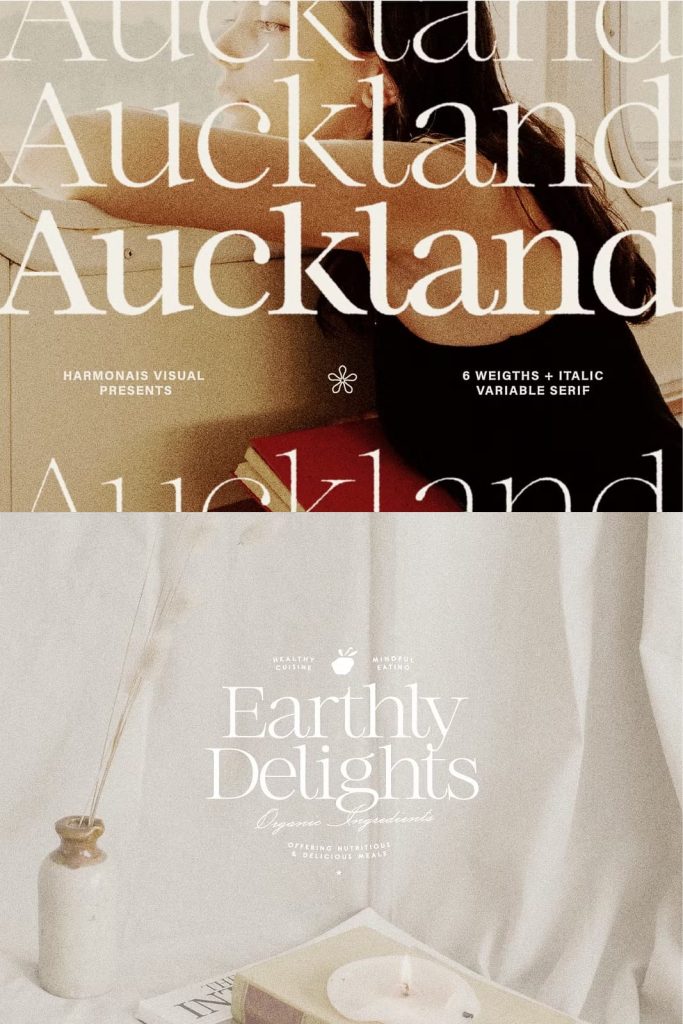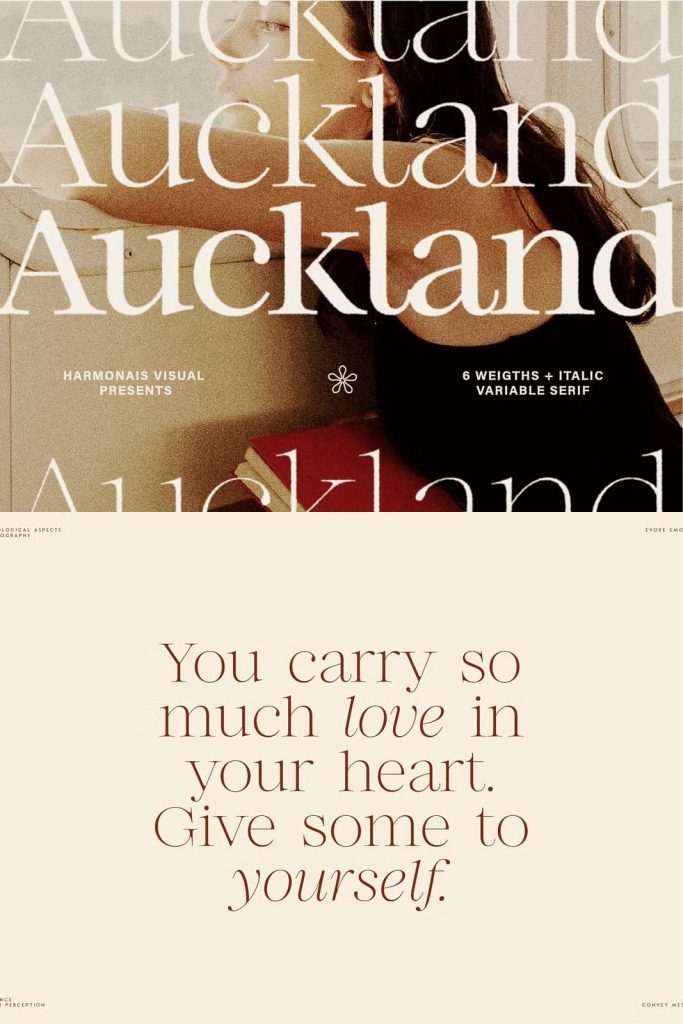
Auckland Variable Serif: A Timeless and Versatile Serif Typeface
Auckland Variable Serif is a refined serif font crafted with elegance, versatility, and timeless character. Designed with beautifully sculpted curves and sharp, deliberate detailing, this typeface brings sophistication to any design project. Whether you are working on branding, editorial layouts, digital designs, or product packaging, Auckland Variable Serif offers a professional and polished typographic foundation. Its variable features allow dynamic adjustments, giving designers complete control over weight, expression, and overall visual impact.
Experience the Elegance and Timeless Charm of Auckland Variable Serif
Auckland Variable Serif captures the classic beauty of traditional serif typography while embracing the modern capabilities of variable font technology. Each letterform features smooth transitions, balanced proportions, and graceful movement. The consistent structure enhances clarity and visual harmony, making the typeface suitable for both display and text settings. Its timeless charm allows designers to create compositions that feel contemporary yet rooted in classic design principles.
The careful combination of elegant curves and confident strokes gives Auckland Variable Serif its distinctive character. The design communicates reliability, professionalism, and artistic refinement, qualities that make it highly effective in formal presentations, high-end branding, editorial spreads, and luxury design concepts.
Designed to Support a Wide Range of Creative Projects
Auckland Variable Serif adapts seamlessly to various design environments. Its variable capabilities enable users to fine-tune weight and contrast, allowing the font to take on different personalities depending on the project’s needs. Use it for bold headlines by increasing weight, or fine-tune it to create smooth, delicate typography for longer reading experiences. This flexibility ensures consistency across multiple media formats while supporting creative exploration.
Designers can apply Auckland Variable Serif in branding systems, where a cohesive visual identity is essential. The font performs exceptionally well in logotypes, taglines, stationery designs, business cards, and corporate materials. In editorial projects, its refined form enhances readability for magazines, books, brochures, and professional reports. For digital designs, Auckland offers clarity across screen sizes, delivering a polished appearance for websites, apps, and presentation graphics.
Why Designers Choose Auckland Variable Serif
Designers appreciate Auckland Variable Serif because it delivers both beauty and functionality. Its variable version allows full customization, making the typeface responsive to creative vision. You can adjust softness, weight, contrast, and overall tone to suit specific branding or design goals. This adaptability ensures that Auckland remains relevant across different projects, from modern minimalism to vintage-inspired compositions.
The font’s carefully crafted curves and structural harmony enhance visual flow, helping designers communicate messages with clarity and style. Auckland Variable Serif maintains a consistent rhythm, supporting both small and large text blocks with equal efficiency. Its timeless charm ensures designs feel thoughtful, elegant, and professional, regardless of medium.
Elevate Your Designs with Sophisticated Typography
Auckland Variable Serif empowers creatives to build compelling design experiences. Its elegant form enhances visual storytelling, transforming ordinary compositions into works of refined craftsmanship. The typeface’s subtle details—such as curved terminals, balanced serifs, and thoughtful proportions—add depth and personality to every layout. Whether you aim to create luxury brand identities, high-end packaging, or refined digital presentations, Auckland provides the typographic foundation needed to deliver excellence.
With its timeless appeal and modern flexibility, Auckland Variable Serif serves as a dependable tool for designers seeking polished, expressive, and professional typography. Its aesthetic strength and variable technology combine to form a typeface that will continue to elevate creative projects for years to come.
Auckland Variable Serif stands as a versatile serif typeface with exquisite detailing and timeless elegance. Its variable features support limitless creative expression while maintaining consistency and readability across all design formats. From branding and editorial work to digital interfaces and packaging, Auckland Variable Serif enriches every project with sophistication, clarity, and visual harmony. Embrace this exceptional serif font to bring refined typography and lasting impact to your creative work.